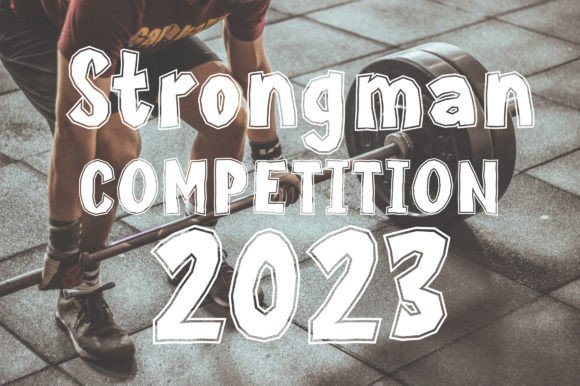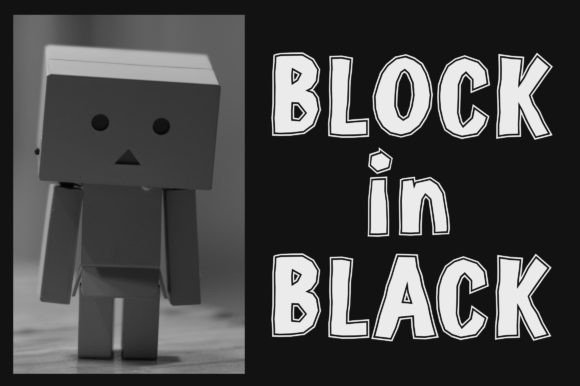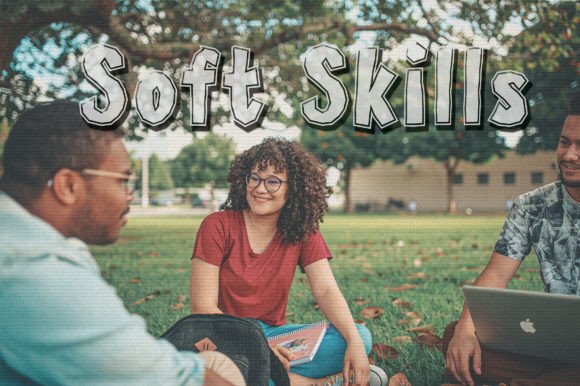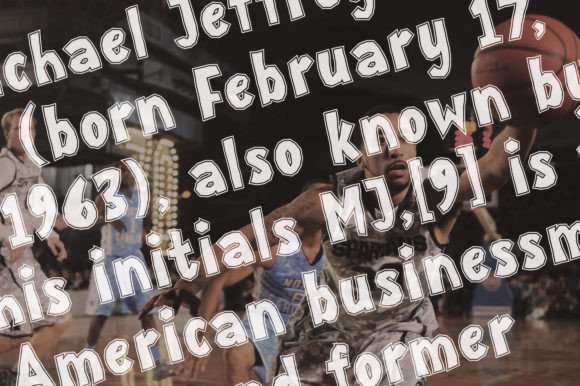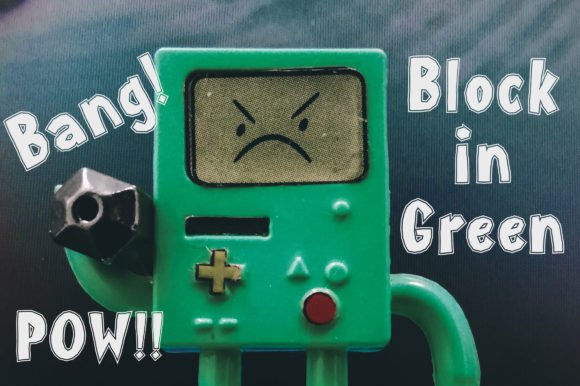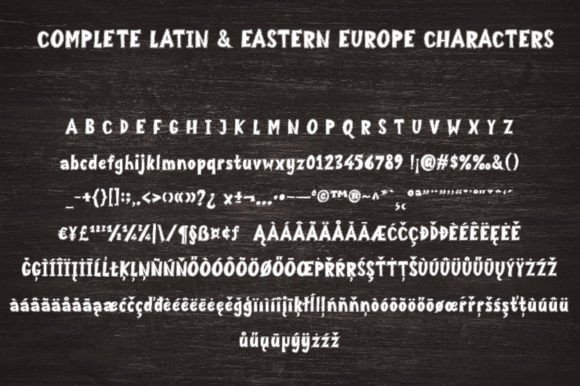
Introduction to Parga Font Font
Fonts play a crucial role in design, and the Parga Font font is a typeface that brings both character and versatility to any project. Whether you’re working on a branding project, a website, or a print design, the Parga Font font offers a unique style that can elevate your work.
| 📌 Font Name | Parga Font |
| 👤 Author | Royaltype |
Parga is a cool, informal, varsity-style display font.
Add this chunky lettered font to your designs and notice how it makes them come alive .
Key Features of Parga Font Font
Why Choose Parga Font Font?
The Parga Font font is more than just a typeface – it’s a design tool that helps you communicate your message with style and clarity. Its unique character set and versatile design make it suitable for a wide range of applications, from elegant invitations to bold headlines.
With its carefully crafted letterforms and balanced proportions, the Parga Font font ensures readability and visual appeal across all mediums.
What makes Parga Font font special?
The Parga Font font stands out with its unique design, exceptional readability, and versatility across various design applications.